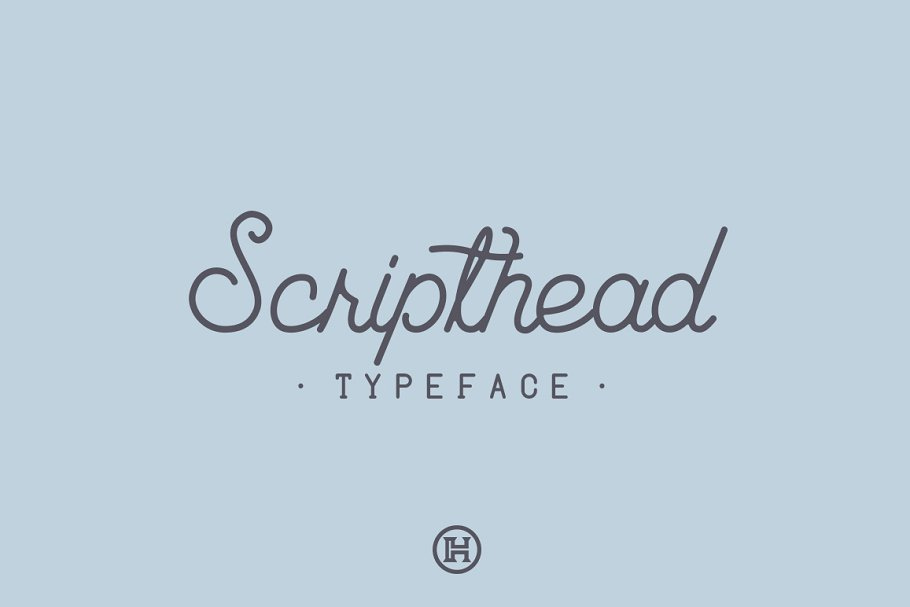
Scripthead Font
This handwritten typeface is perfect for personal branding, signature logos, handmade crafts, artisanal products, creative studios, custom invitations, boutique signage, artistic projects, and authentic script design applications.
What makes this font exciting is its handcrafted authenticity combined with creative sophistication, offering designers a personal typeface that captures the essence of individual expression while delivering artistic flair and handwritten visual elegance.
The Scripthead font family includes regular, bold, light, flourished, and artistic variations, providing complete handwritten design solutions for creating personal creative visual identities.
Whether you're developing artistic personal brands or crafting handcrafted design experiences, Scripthead Font Free Download brings exceptional creative atmosphere and handwritten authenticity to every application. This personal typeface combines traditional script typography with contemporary artistic design, creating letterforms that inspire creativity and celebrate individual expression. The font's handcrafted construction and artistry-ready details make it perfect for brands seeking immediate personal recognition.
Scripthead Font features carefully crafted handwritten styling with authentic artistic character that conveys genuine creative expertise. Each character has been designed with natural proportions and expressive elements that enhance the personal aesthetic. The font's handwritten qualities make it particularly effective for creative brands and artistic applications.
Professional designers choose Scripthead Font for projects requiring authentic handwritten credibility and creative atmosphere. Its artistic heritage makes it exceptionally well-suited for creative studios, artisan businesses, and personal lifestyle brands. The font's versatile handwritten variations allow designers to control the creative intensity, from subtle artistic elegance to full expressive celebration.
The complete Scripthead Font package offers extensive handwritten ornaments and artistic decorative elements that enhance the creative aesthetic. Advanced expressive features allow designers to create complex handwritten effects with multiple artistry-inspired options. This comprehensive creative toolkit ensures designers have everything needed to create authentic handwritten communications that celebrate the irreplaceable value of personal expression and handcrafted artistic sophistication.